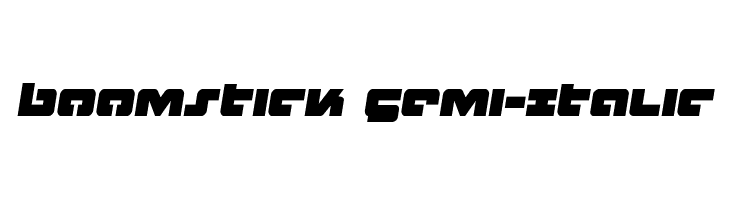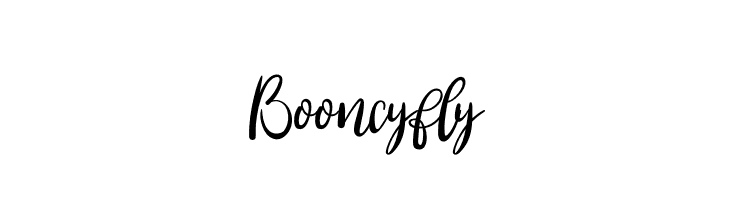
A bold, semi-italic font with a geometric and dynamic style.
A bold, italicized font with a futuristic and dynamic style.
A playful, cursive font with flowing strokes and a dynamic, energetic style.
A lively, flowing script font with elegant curves and dynamic strokes.
A playful, bold font with rounded, bubbly characters and a whimsical style.
An elegant, calligraphic font with fluid, sweeping strokes.
A bold, italicized font with a dynamic and playful style.
A geometric, modern font with a digital and futuristic style.